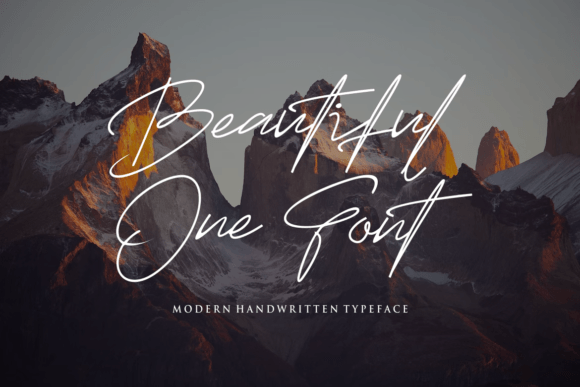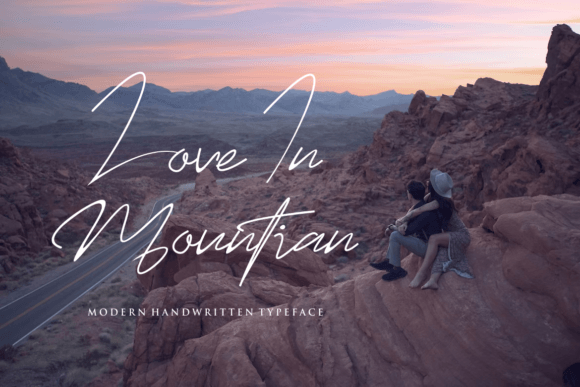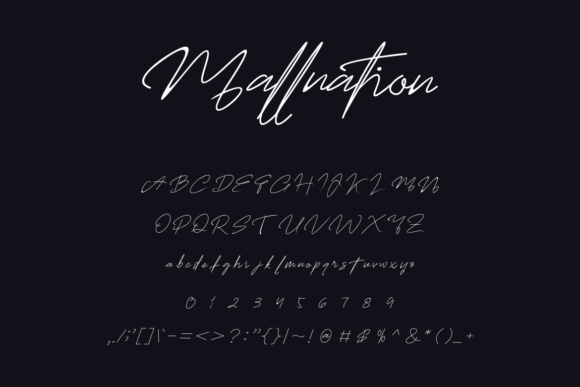
Introduction to Mallnation Font
Imagine you’re sitting at your desk, surrounded by scribbled ideas, design concepts, and a blank page staring back at you. You’ve been tasked with creating the perfect invitation for your best friend’s wedding, and you want it to be truly unforgettable. You start brainstorming, experimenting with different font styles and layouts, but nothing seems to capture the essence of the special day. That’s when you stumble upon the Mallnation Font – a delicate and flowing signature script font that changes everything.
With its incredibly distinct and timeless style, the Mallnation Font is a valuable resource for designers looking to elevate their creative projects. Its high-quality design and transparent background make it perfect for a variety of applications, from wedding invitations to social media graphics.
Key Features of Mallnation Font
- High-quality typography: Mallnation Font is designed to deliver crisp, clear text that elevates any creative project.
- Transparent background: This versatile font allows for seamless integration with any design, making it a valuable design resource.
- Large character set: Mallnation Font includes a comprehensive set of characters, including Latin, Cyrillic, and Greek alphabets, as well as punctuation and symbols.
- High-resolution design: The font is designed at 300 DPI, ensuring it looks great in print and digital applications.
- Perfect for creative projects: Mallnation Font is ideal for use in branding, advertising, and editorial design, where high-quality typography is essential.
Honest Review: Mallnation Font
As a designer, I’m always on the lookout for high-quality design resources that can elevate my creative projects. Recently, I had the chance to try out the Mallnation Font, and here’s my honest review.
What works well: ✨ I was impressed by the font’s modern and sleek design. It’s perfect for any project that requires a clean and minimalist aesthetic. The font is also highly legible, making it great for body text or headings.
- Transparent background, making it easy to use on any design background
- Great for digital design, including web and mobile applications
However, I did notice a few limitations: ⚠️ The font is only available in a limited number of weights and styles, which might limit its versatility. Additionally, the font doesn’t include any special characters or accents, which could be a problem for certain languages.
Overall impression: I was impressed by the Mallnation Font’s clean design and high quality. While it has some limitations, it’s a great addition to any designer’s toolkit. With a little creativity, you can use this font to create some amazing designs.
Mallnation Font
The Mallnation Font is a high-quality design resource that offers a transparent background, making it perfect for creative projects. You can download it for free and use it in a variety of applications.
The Mallnation Font is commonly used for creative projects, such as branding, advertising, and packaging design. It’s also great for presentations, reports, and other documents where a high-quality, transparent background is needed.
To get the most out of the Mallnation Font, use it in conjunction with other design resources, such as images and graphics. Experiment with different font sizes, colors, and styles to create unique and eye-catching designs.